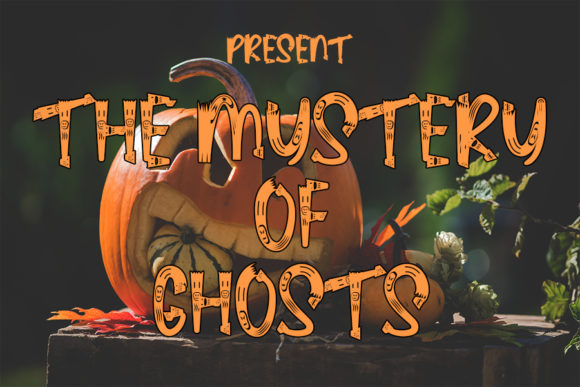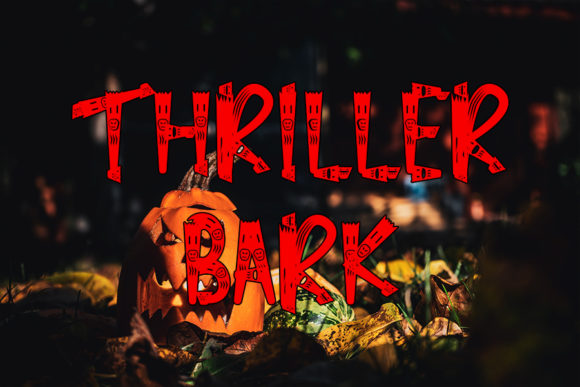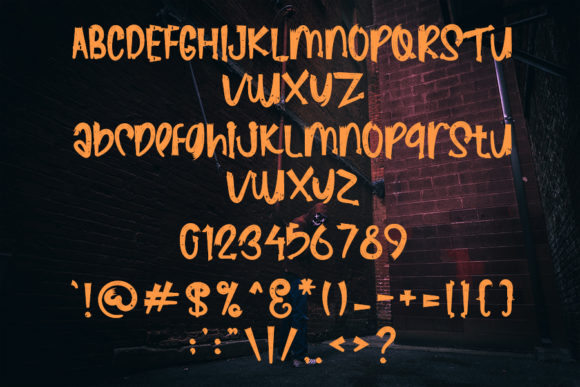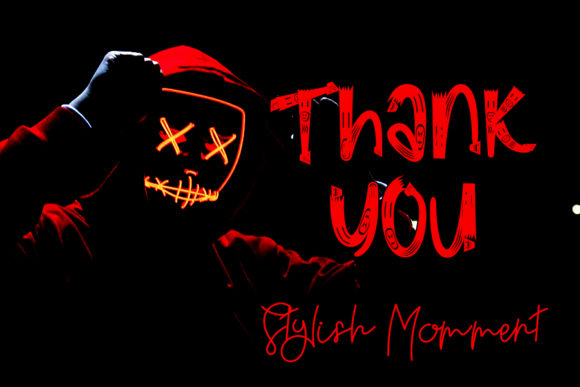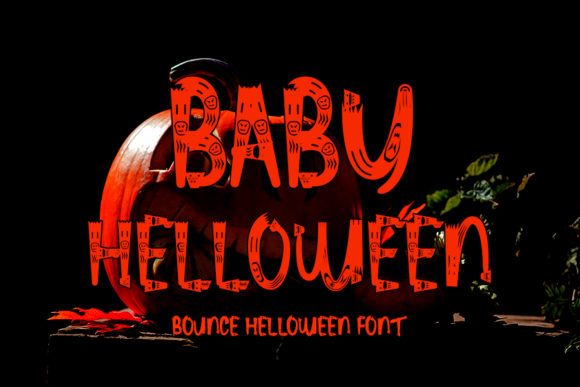
Baby Helloween Font: The Ultimate Display Font for Designers and Crafters
In the world of typography, fonts play a crucial role in conveying messages, expressing emotions, and creating visual identities. For designers and crafters, finding the perfect font can be a daunting task, especially when it comes to creating bold and eye-catching designs. That’s where Baby Helloween Font comes in – a bold and stylish display font that’s sure to become a true favorite in the design community.
What is Baby Helloween Font?
Baby Helloween Font is a modern display font that’s designed to make a statement. With its bold and stylish aesthetic, this font is perfect for creating eye-catching designs that demand attention. Whether you’re working on a formal or non-formal project, Baby Helloween Font is the ideal match. Its incredibly friendly feel makes it suitable for a wide range of applications, from branding and advertising to packaging and crafting.
Key Features of Baby Helloween Font
- Bold and Stylish: Baby Helloween Font boasts a bold and stylish design that’s sure to turn heads. Its unique letterforms and sleek lines make it perfect for creating modern and edgy designs.
- Display Font: As a display font, Baby Helloween is designed to be used in large sizes, making it perfect for headlines, titles, and other attention-grabbing elements.
- Friendliness: Despite its bold and stylish aesthetic, Baby Helloween Font has an incredibly friendly feel. This makes it suitable for a wide range of applications, from formal to non-formal contexts.
- Versatility: Baby Helloween Font is incredibly versatile, making it perfect for a wide range of design projects, including branding, advertising, packaging, and more.
Why Designers and Crafters Love Baby Helloween Font
So, why do designers and crafters love Baby Helloween Font? For starters, its bold and stylish aesthetic makes it perfect for creating eye-catching designs that demand attention. Additionally, its friendly feel makes it suitable for a wide range of applications, from formal to non-formal contexts. Here are just a few reasons why designers and crafters love Baby Helloween Font:
- Easy to Read: Despite its bold and stylish design, Baby Helloween Font is incredibly easy to read, making it perfect for use in a wide range of applications.
- Customizable: Baby Helloween Font is highly customizable, allowing designers and crafters to tailor it to their specific needs.
- Unique: Baby Helloween Font has a unique and distinctive aesthetic that’s sure to set your designs apart from the crowd.
How to Use Baby Helloween Font in Your Designs
Using Baby Helloween Font in your designs is incredibly easy. Here are just a few tips to get you started:
- Pair it with Other Fonts: Baby Helloween Font pairs perfectly with other fonts, making it easy to create visually appealing and harmonious designs.
- Use it in Large Sizes: As a display font, Baby Helloween is designed to be used in large sizes. Use it to create eye-catching headlines and titles that demand attention.
- Experiment with Colors: Baby Helloween Font looks great in a wide range of colors. Experiment with different colors and combinations to find the perfect look for your design.
In conclusion, Baby Helloween Font is a bold and stylish display font that’s sure to become a true favorite in the design community. With its incredibly friendly feel and versatile design, it’s perfect for a wide range of applications, from formal to non-formal contexts. Whether you’re a designer or crafter, Baby Helloween Font is a must-have font that’s sure to take your designs to the next level.